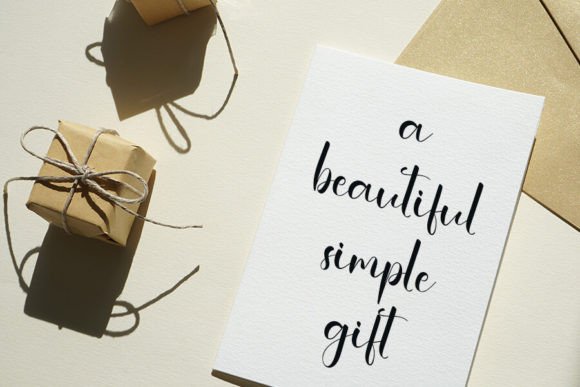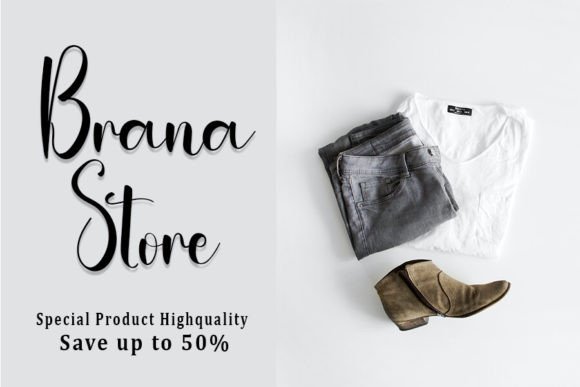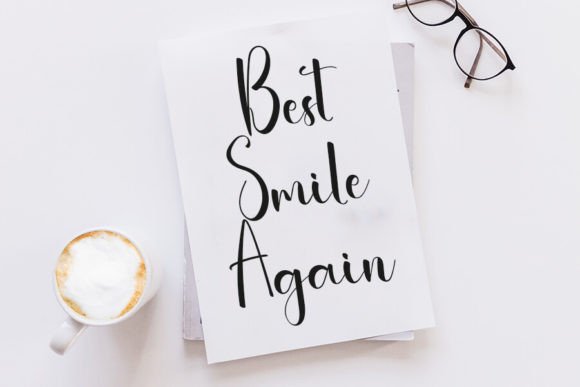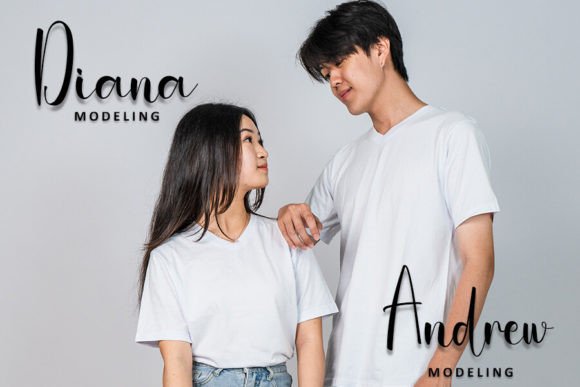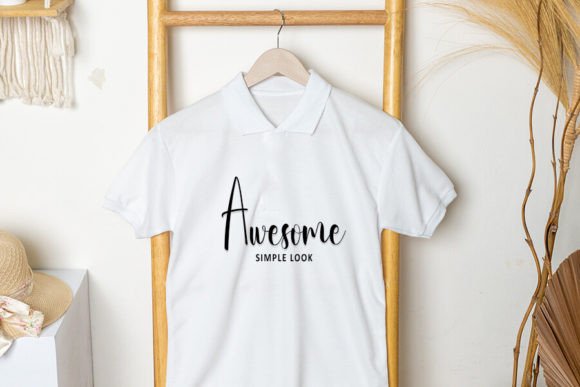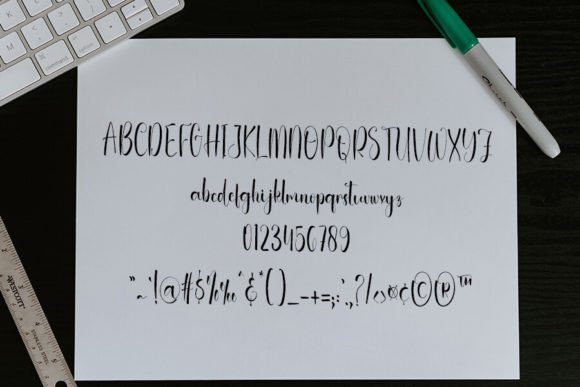
Discover the Charm of Bestfriends Font: Elevate Your Designs with Elegance
Are you on the hunt for a font that adds a touch of sophistication and whimsy to your projects? Look no further than the Bestfriends Font, a stunning handwritten typeface that is sure to capture your heart. With its elegant touch and timeless style, this beautiful font is perfect for designers and crafters seeking to create spectacular designs that stand out from the crowd.
The Unique Characteristics of Bestfriends Font
Bestfriends Font boasts an incredibly distinct style that sets it apart from other fonts. Its neat and beautiful handwritten appearance is characterized by flowing lines, subtle curves, and a dash of playfulness. This font is the epitome of elegance, making it an excellent choice for a wide range of projects, from wedding invitations and branding materials to social media graphics and digital art.
Why Fall in Love with Bestfriends Font?
So, what makes Bestfriends Font so special? Here are just a few reasons why designers and crafters are falling head over heels for this gorgeous font:
- Elegant Touch: Bestfriends Font exudes an air of sophistication and refinement, perfect for projects that require a touch of luxury and glamour.
- Timeless Style: Unlike trendy fonts that quickly go out of style, Bestfriends Font has a timeless quality that ensures your designs will remain stylish for years to come.
- Versatility: This font is incredibly versatile, suitable for use in a wide range of projects, from digital designs to print materials.
- Easy to Read: Despite its elegant appearance, Bestfriends Font is remarkably easy to read, making it perfect for body text and captions.
Use Bestfriends Font to Create Spectacular Designs
With Bestfriends Font, the creative possibilities are endless! Here are some ideas to get you started:
- Wedding Invitations: Add a touch of romance and elegance to your wedding invitations, save-the-dates, and other stationery.
- Branding Materials: Use Bestfriends Font to create stunning logos, business cards, and brochures that reflect your brand’s personality.
- Social Media Graphics: Elevate your social media presence with eye-catching graphics, quotes, and promotional materials.
- Digital Art: Experiment with Bestfriends Font in your digital art projects, such as illustrations, watercolor designs, and mixed media creations.
Tips for Using Bestfriends Font Effectively
To get the most out of Bestfriends Font, keep the following tips in mind:
- Pair with Complementary Fonts: Combine Bestfriends Font with complementary fonts to create visual interest and hierarchy.
- Experiment with Colors: Try pairing Bestfriends Font with different colors to add contrast and personality to your designs.
- Play with Size and Style: Experiment with different font sizes and styles, such as bold or italic, to add emphasis and create visual flow.
In conclusion, Bestfriends Font is a beautiful and elegant handwritten font that is sure to capture your heart. With its timeless style, versatility, and ease of use, it’s the perfect addition to any designer’s or crafter’s toolkit. Whether you’re creating wedding invitations, branding materials, or digital art, Bestfriends Font is sure to help you create spectacular designs that stand out from the crowd.